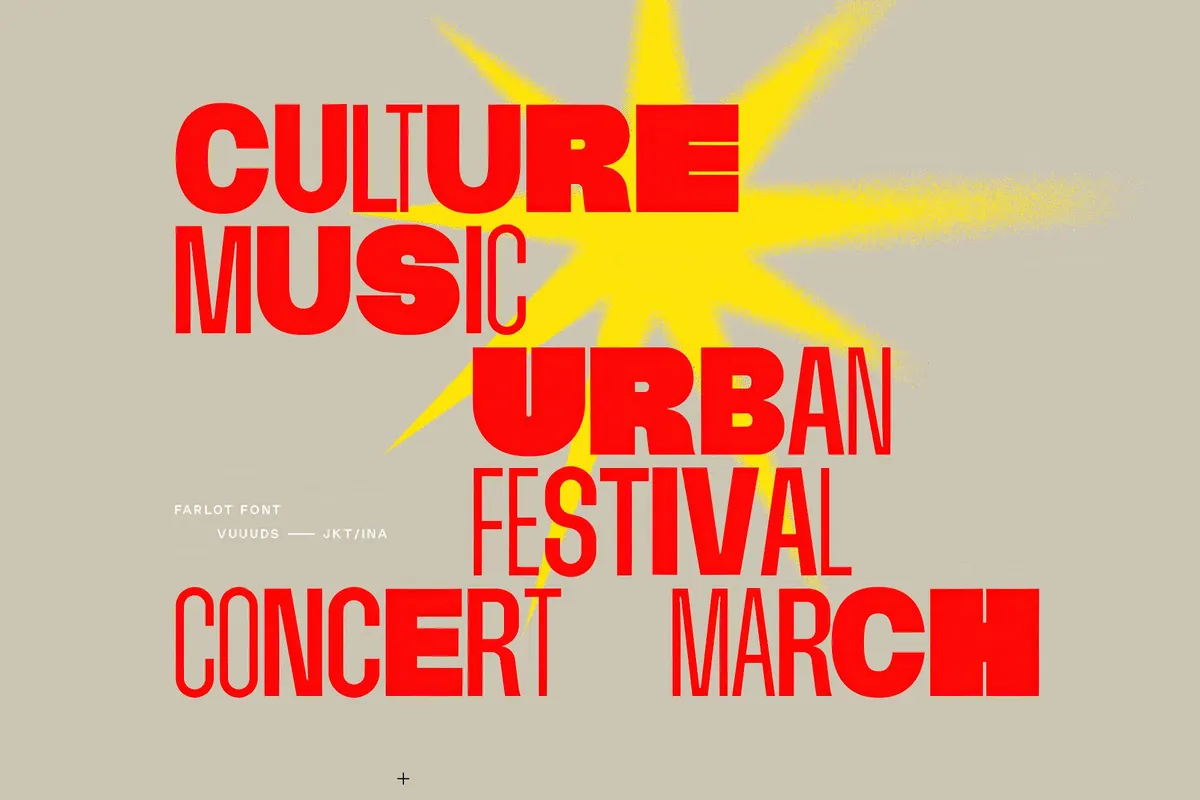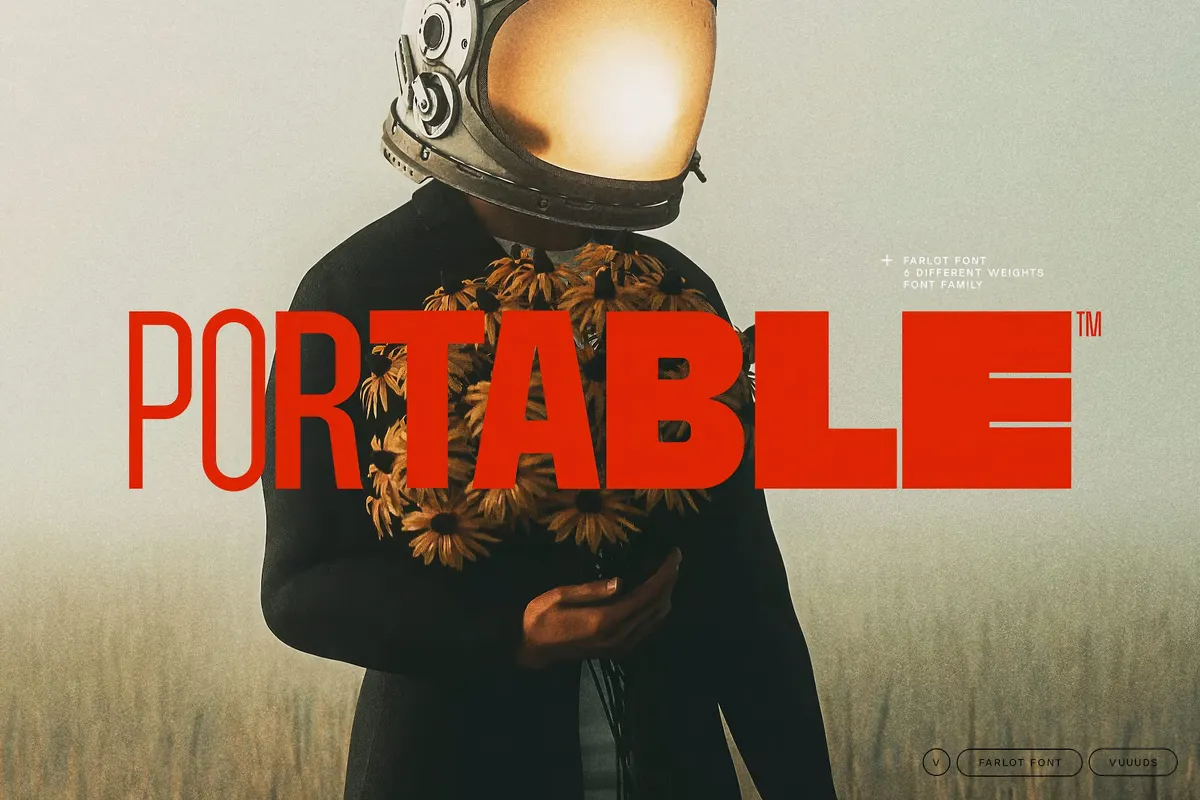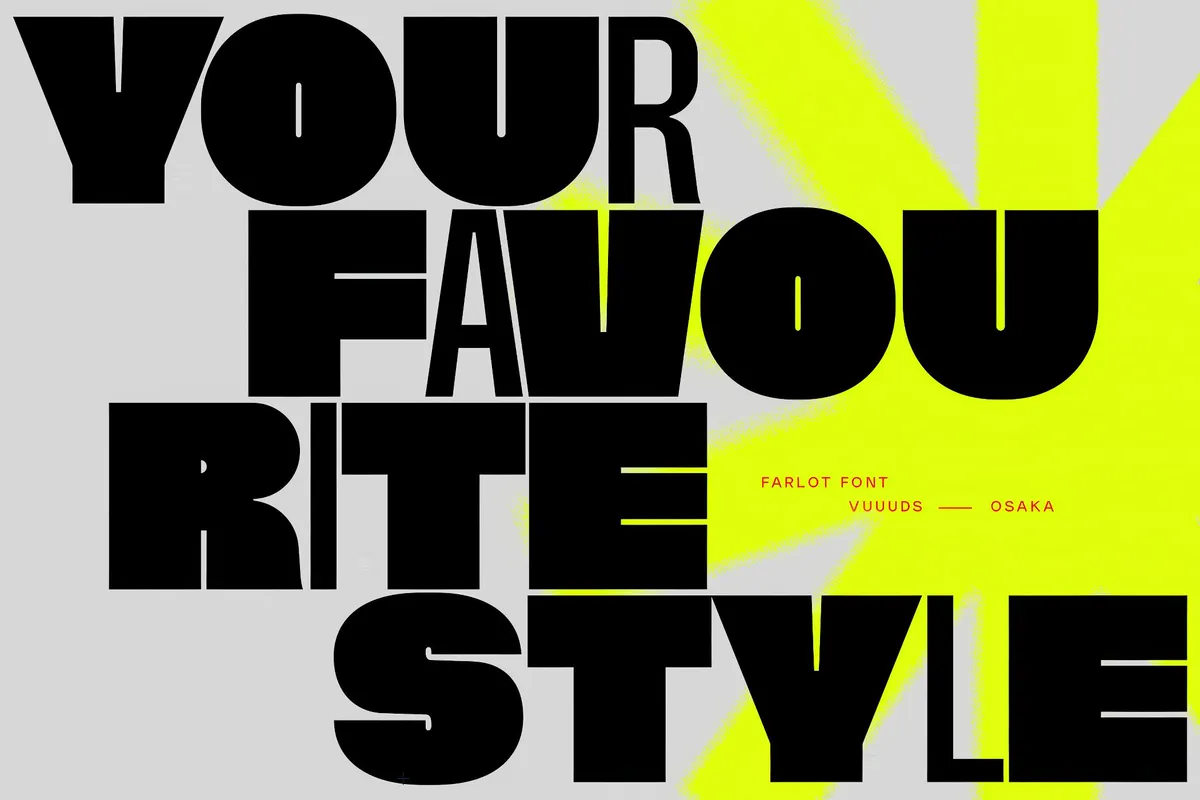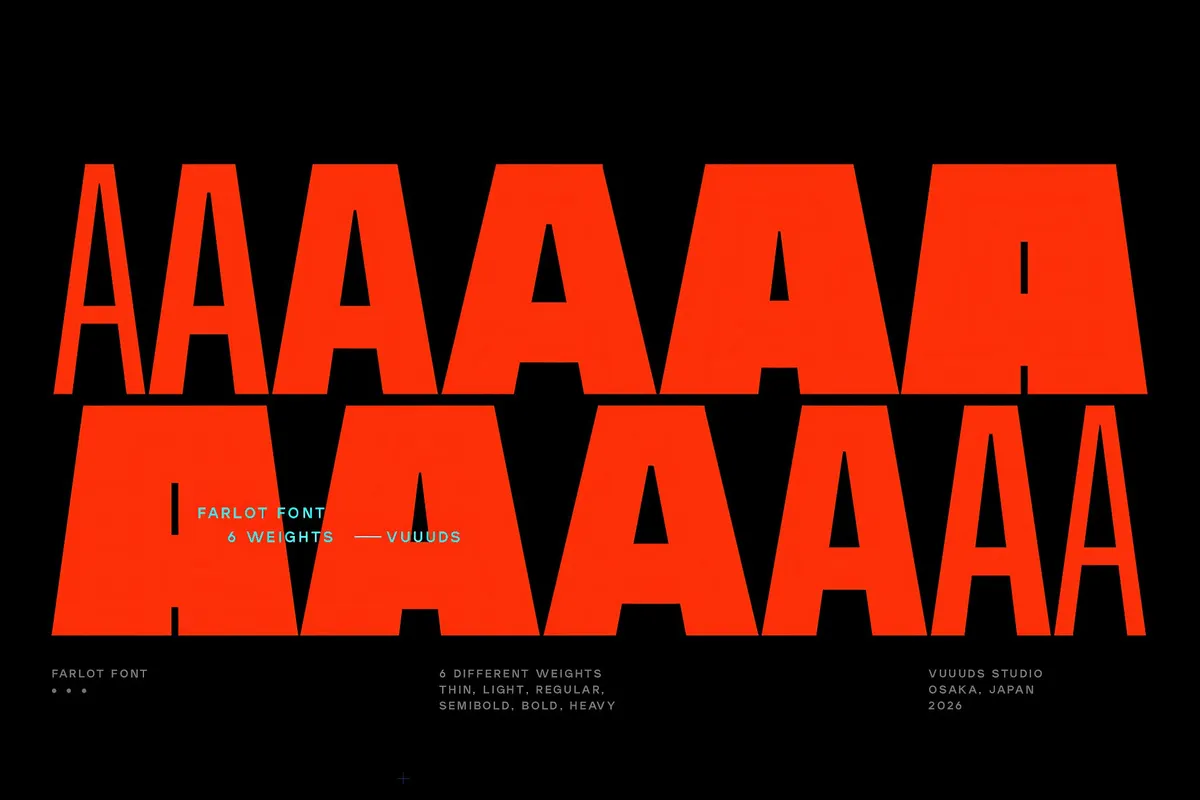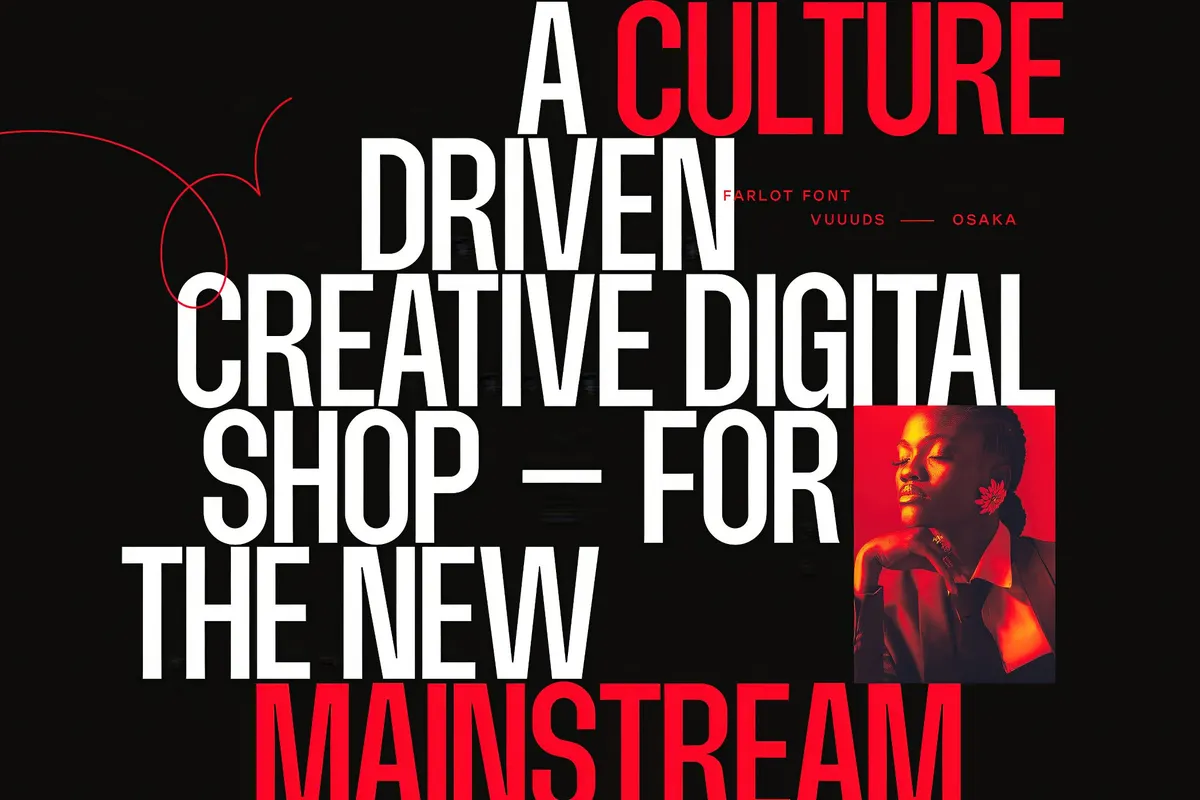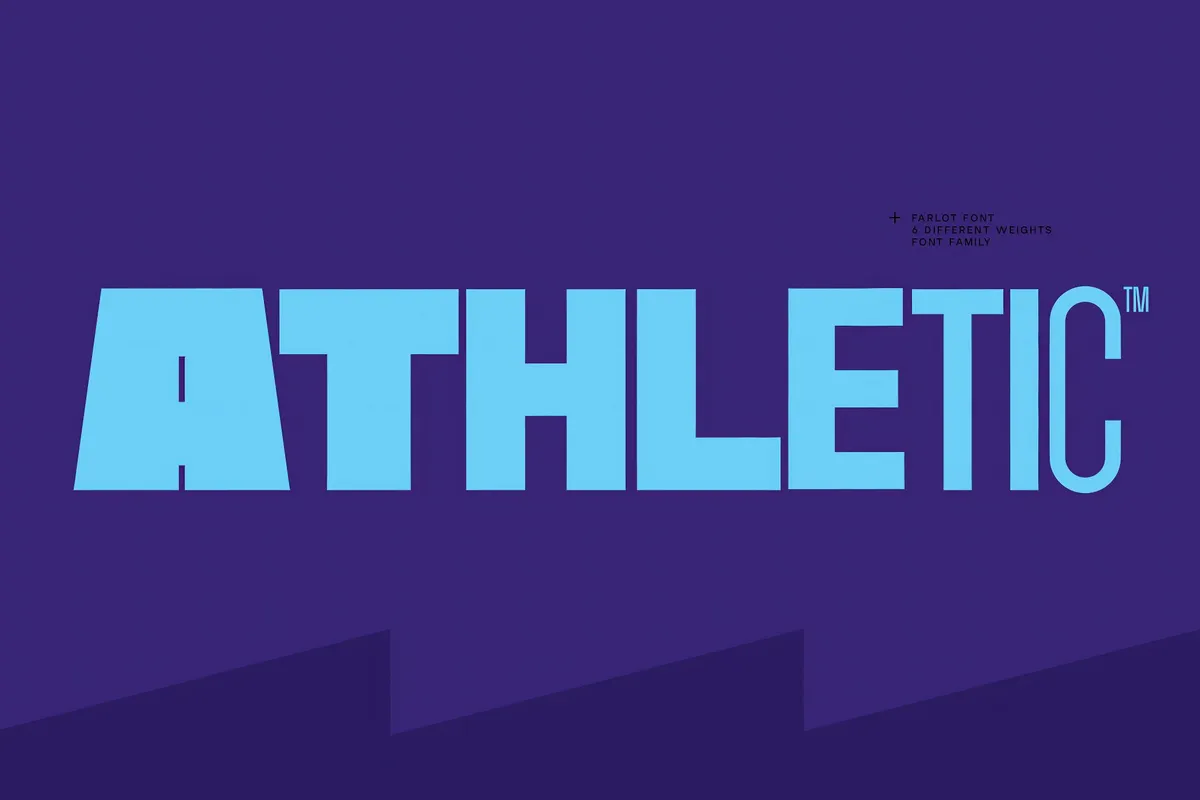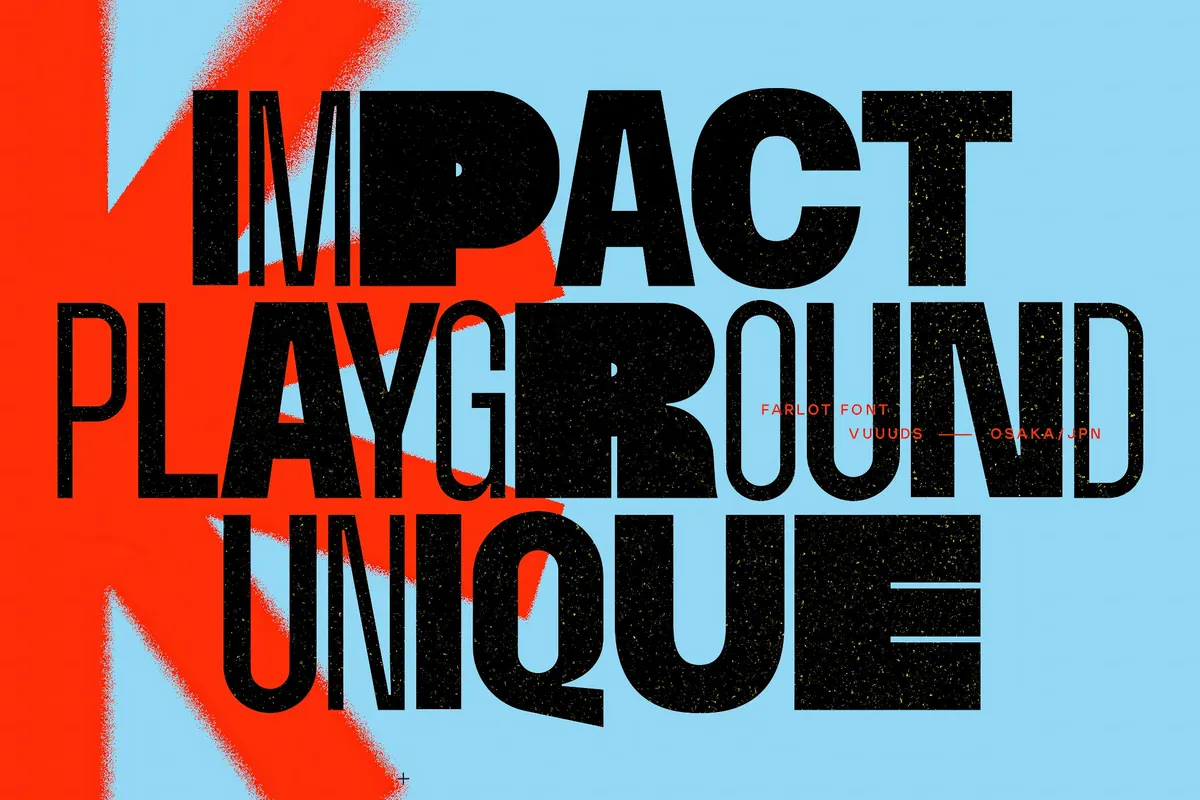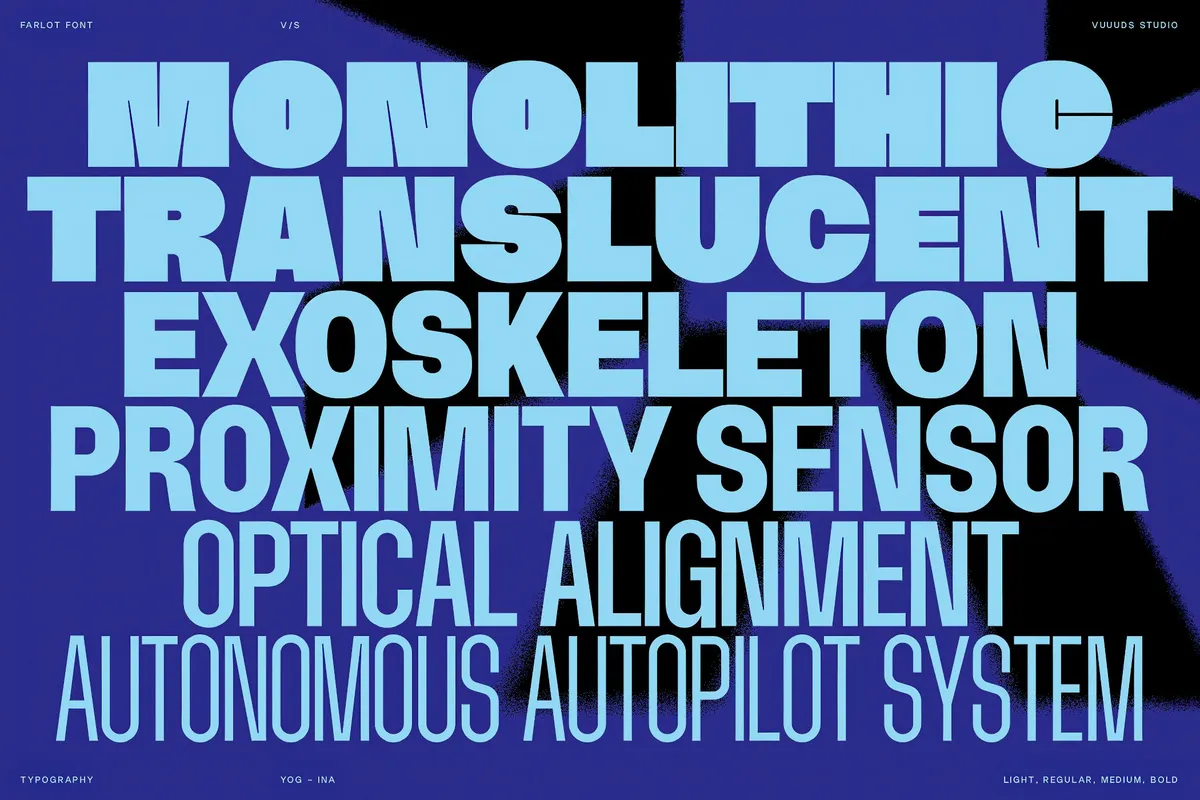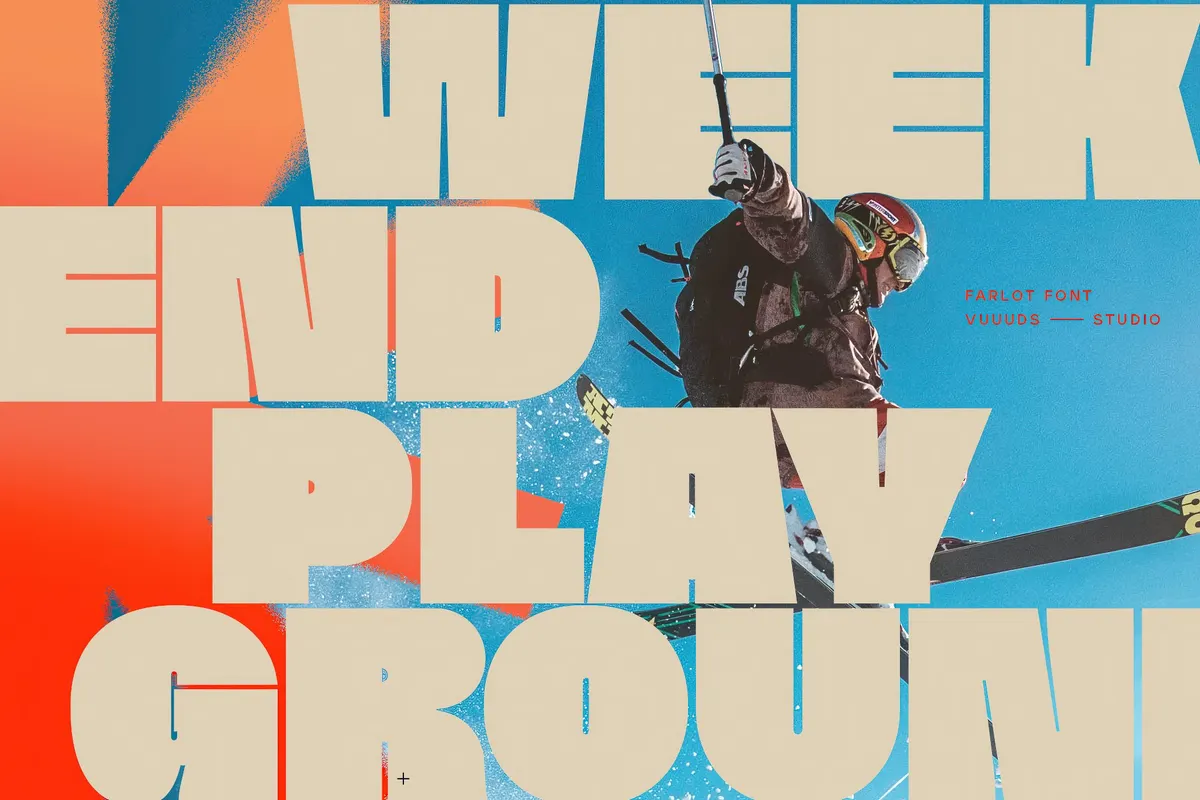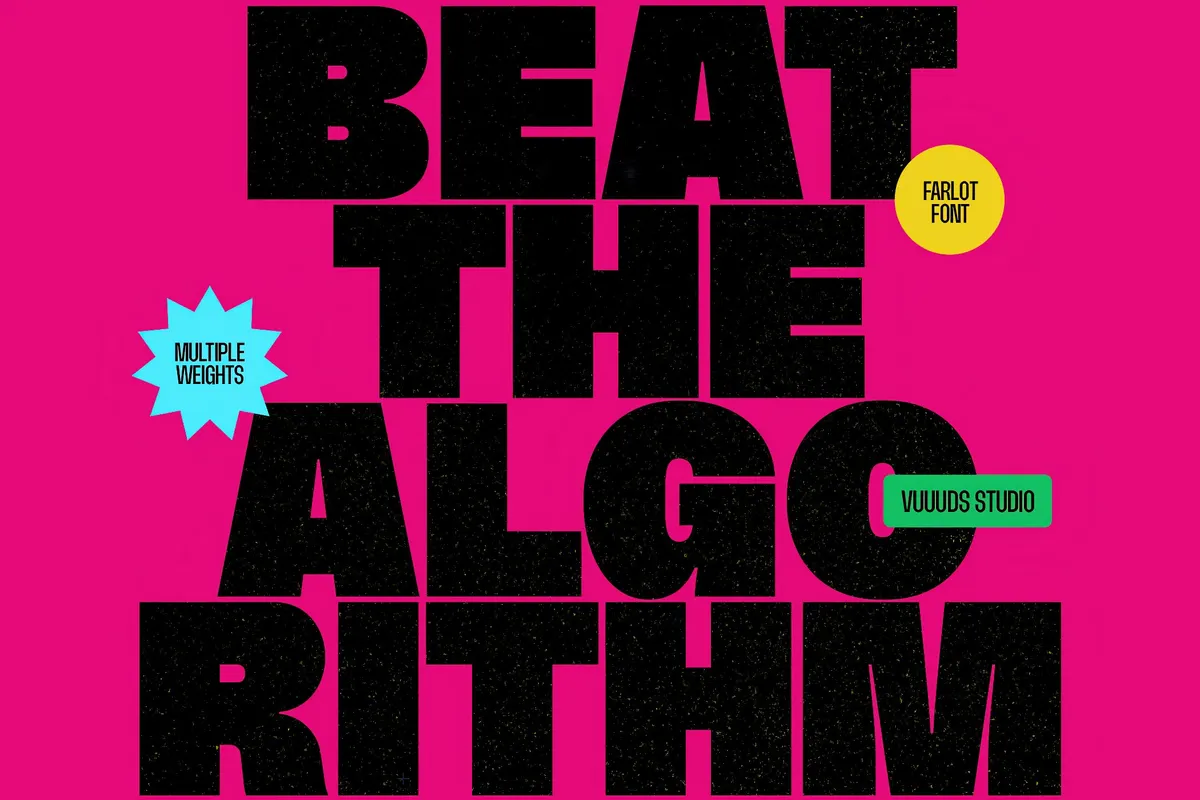
Farlot - Bold Sans Serif Display Family
Farlot is a bold sans serif font built for big type. It comes in a six-weight family, from a lean uppercase to a heavy industrial black. The letterforms are wide and squared, the terminals cut flat, and the counters are tight, so a headline brings mechanical force, no wasted space. Across the six weights, the same skeleton holds, which lets a title shift from a quiet standfirst to a full-stop statement without changing typeface.
Farlot works in short, confident settings where the caps can take up room. Use it for poster titles, magazine covers, sports and streetwear graphics, product packaging, event branding, tech and startup logos, editorial headlines, and transit signage.